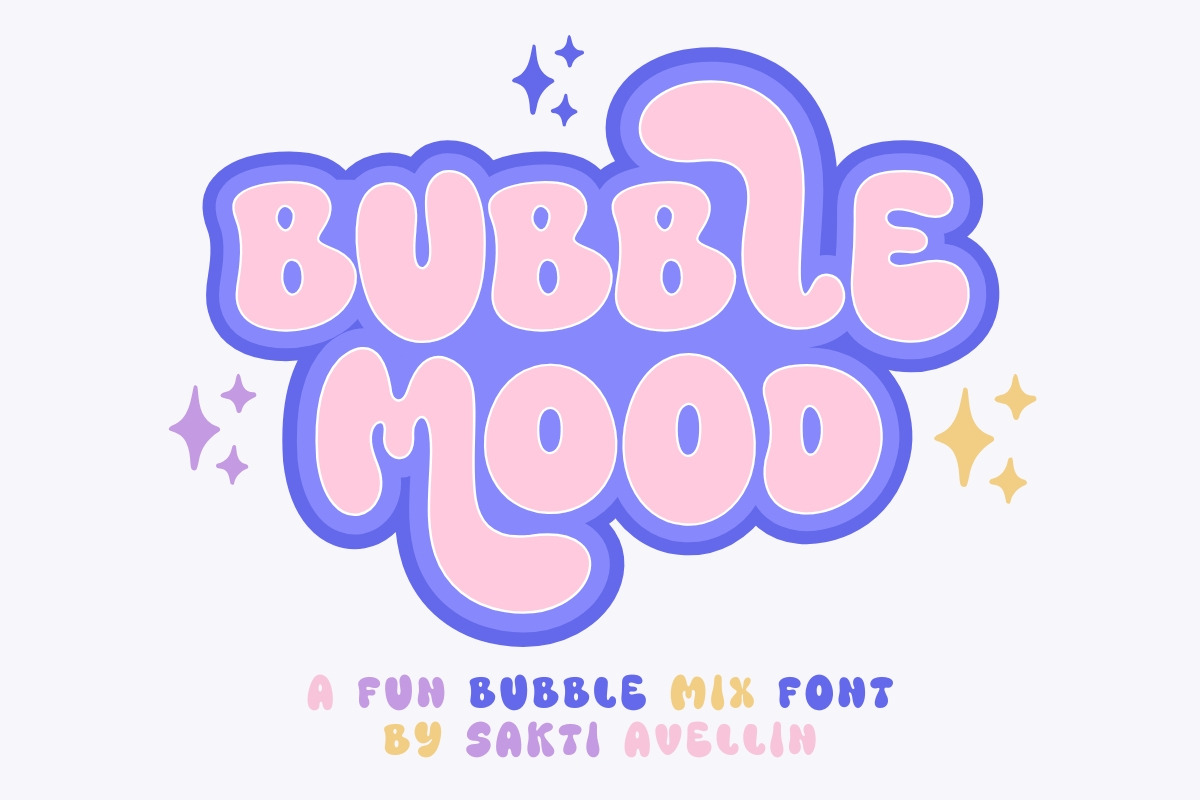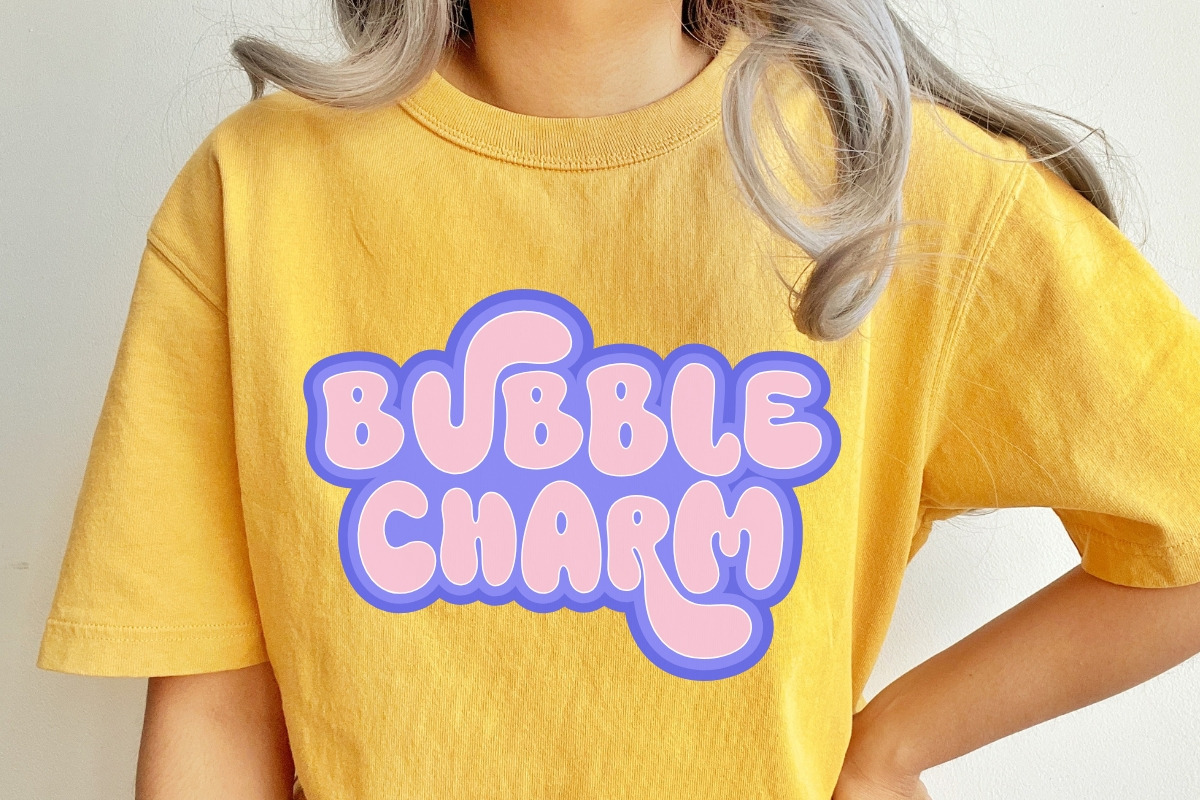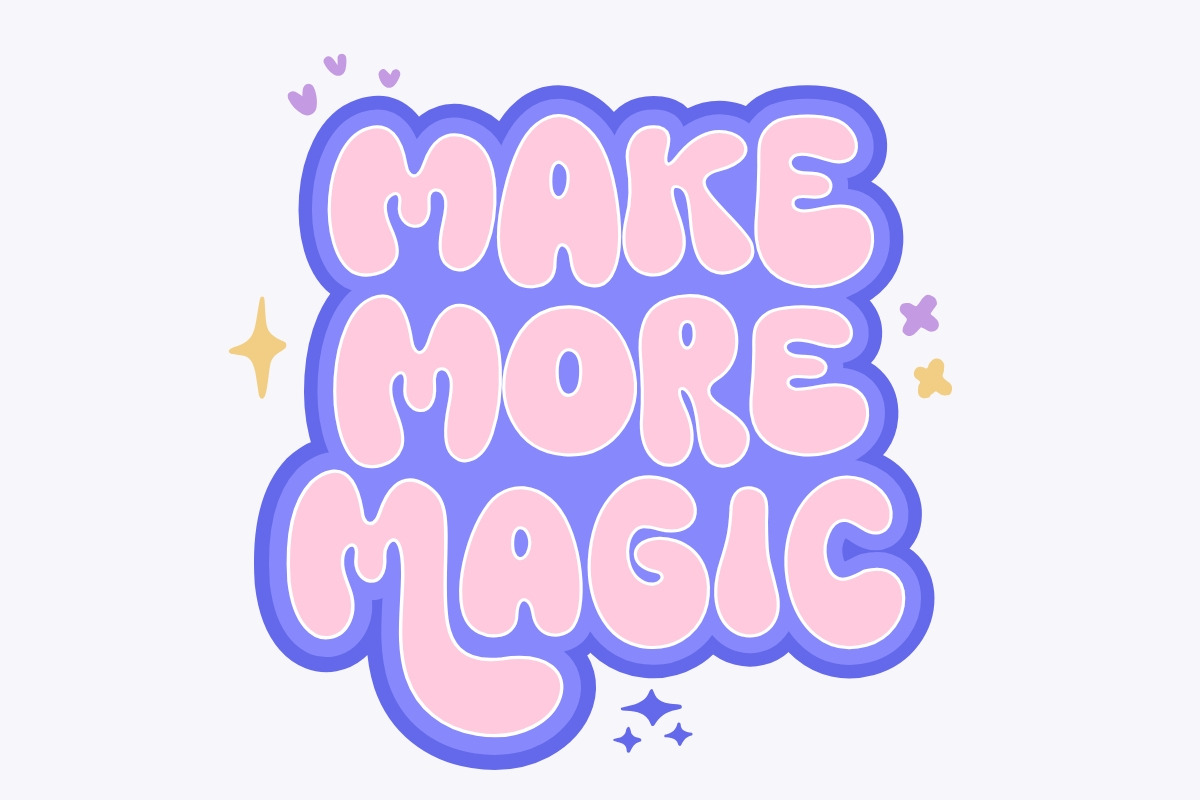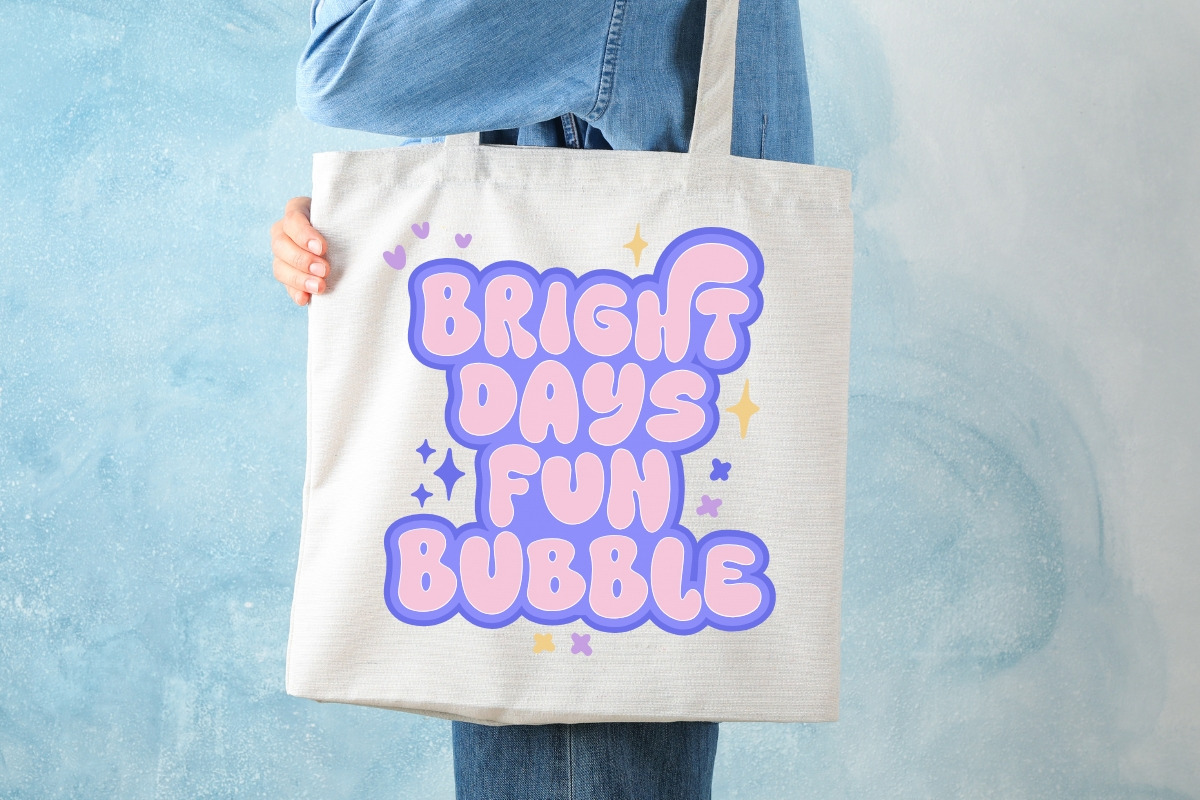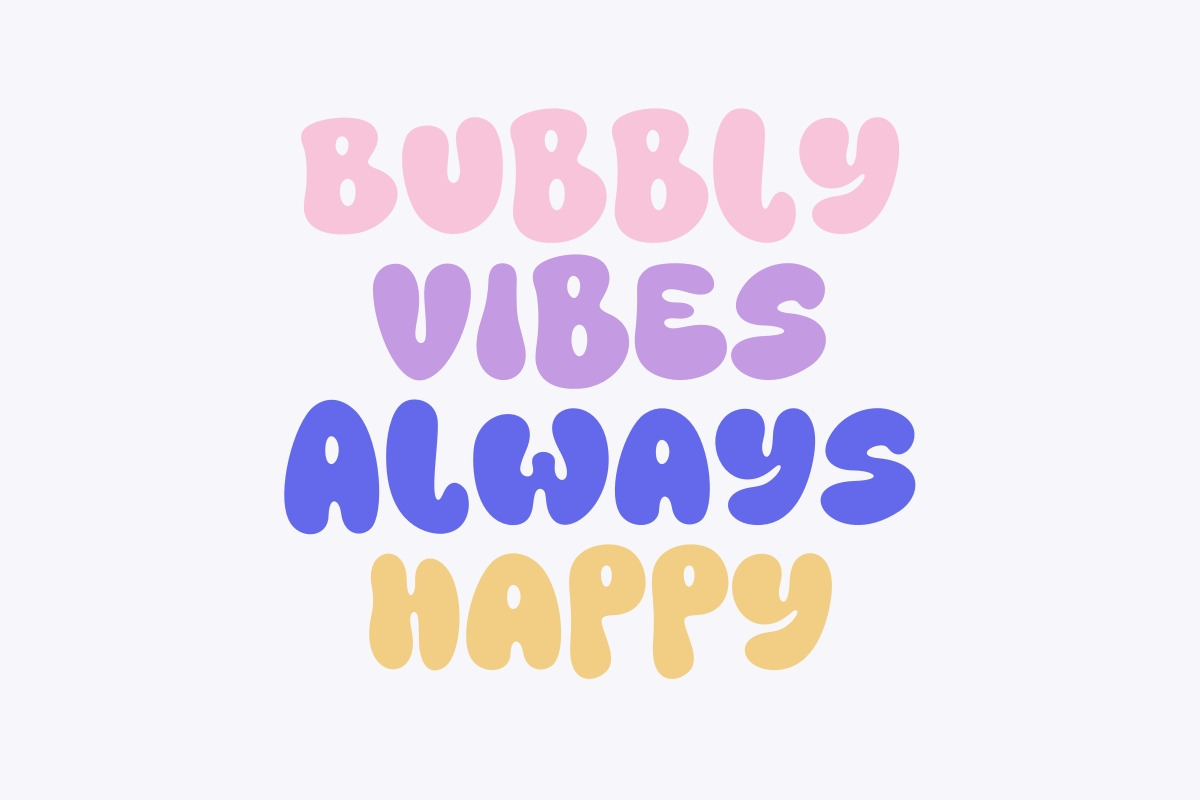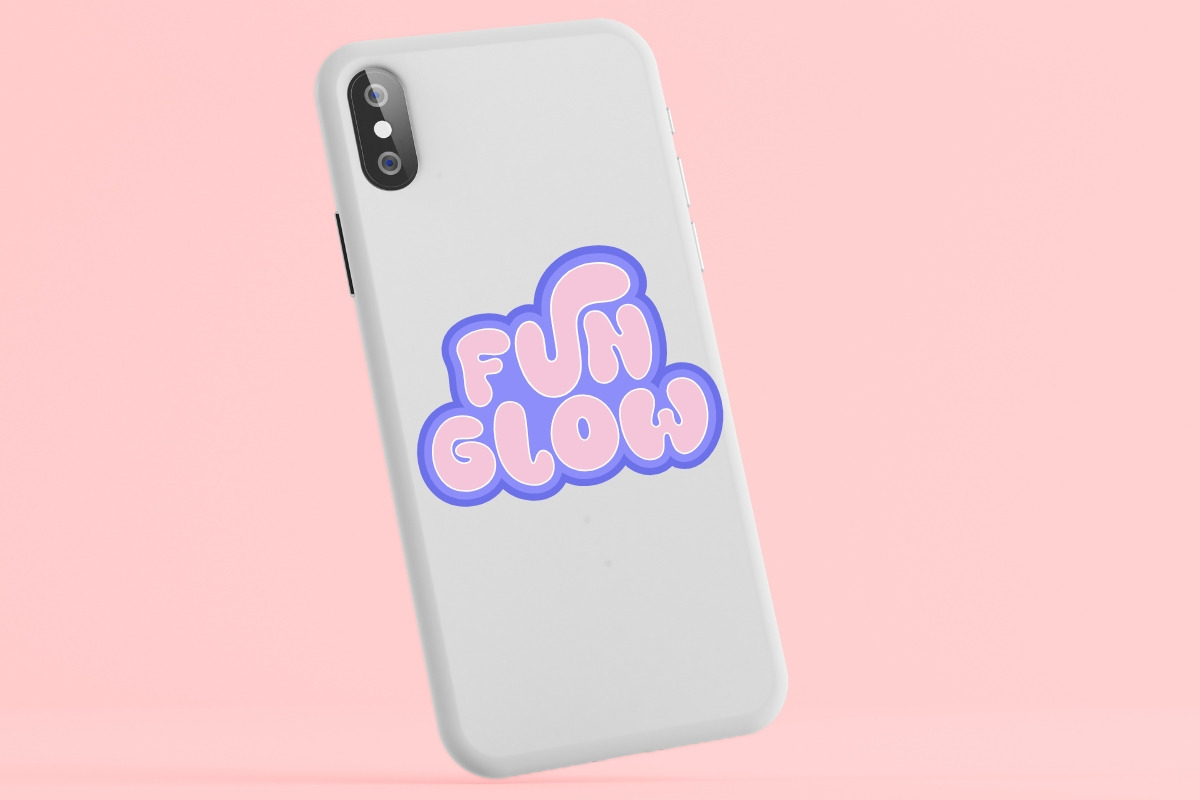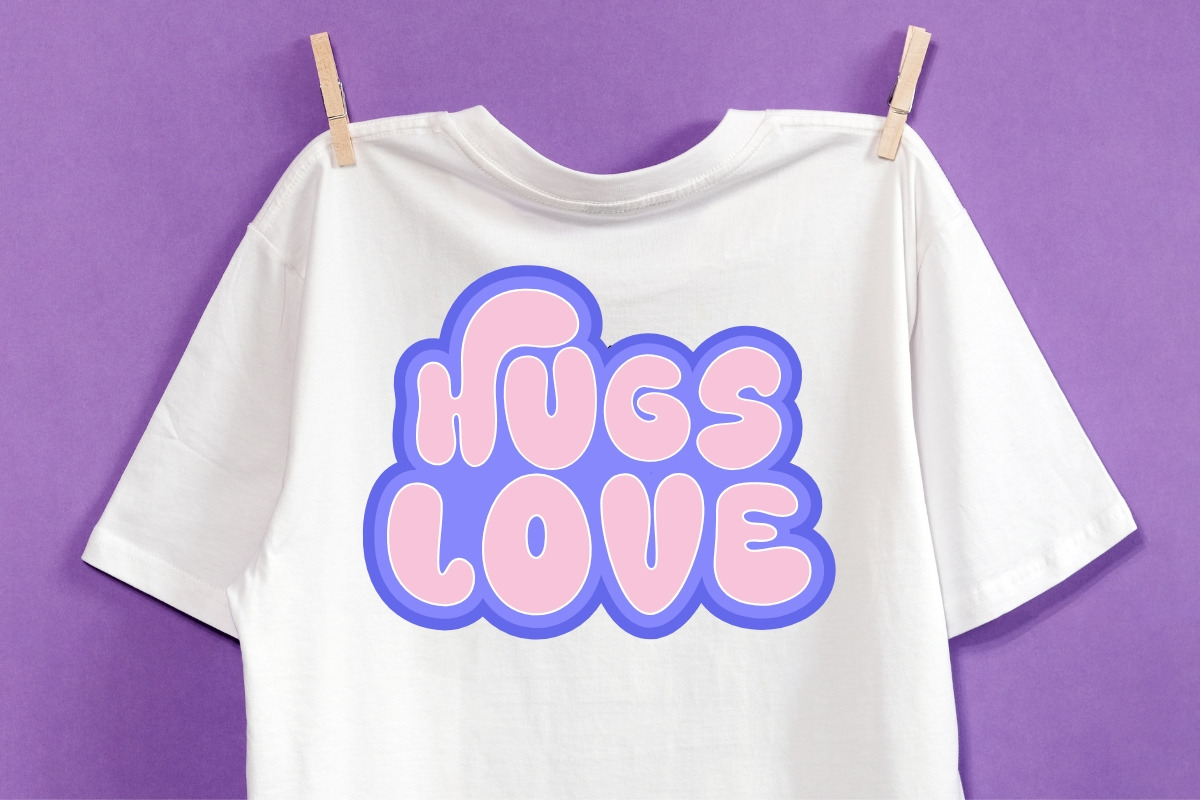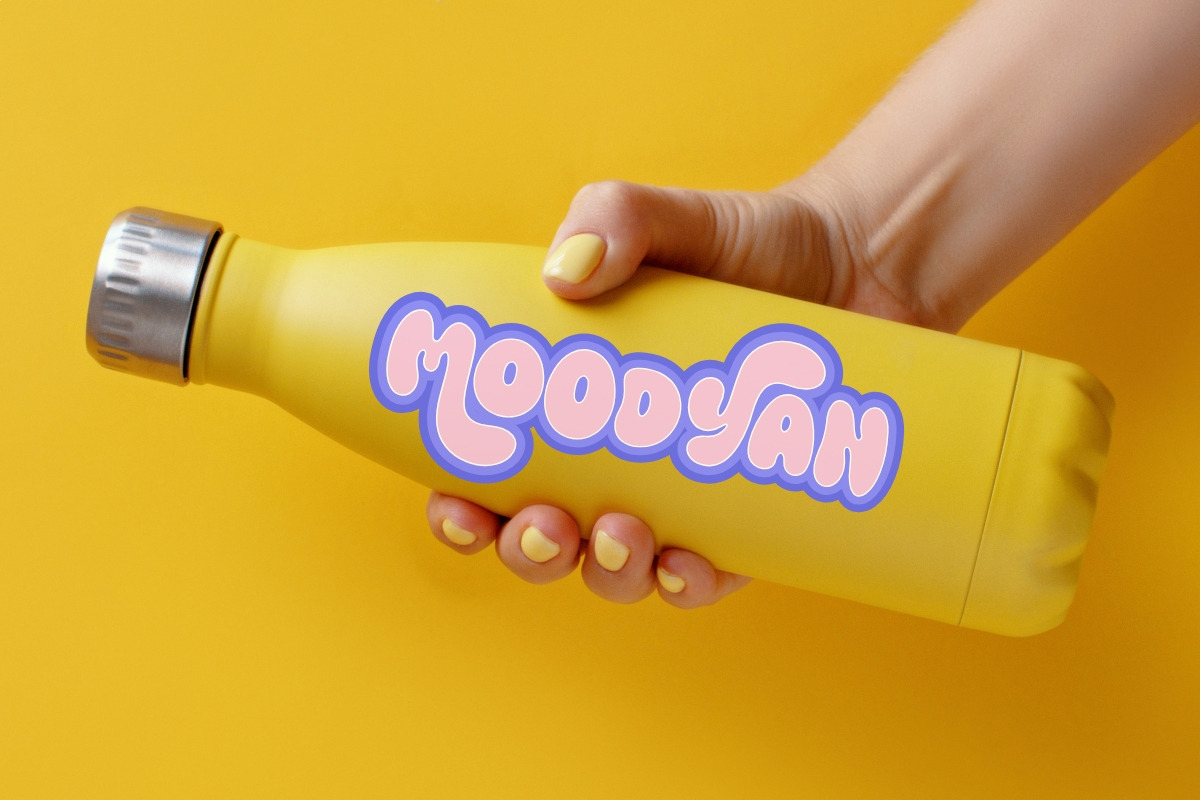
Bubble Mood - Fun Bubble Mix Font
Bubble Mood is an incredibly fun bubble mix font that radiates playful charm and a super cute aesthetic. This bold, chunky display font features exaggerated, rounded letterforms, creating a soft and whimsical mood. It is essential for kids' branding, cheerful party invitations, fun feminine logos, vibrant t-shirt designs, and engaging social media graphics. Its distinctive, heavy style ensures it is a powerful display typeface for headlines and product packaging, appealing to a trendy audience that loves bold, modern, and adorable design. Inflate your creative work with the joyous look of this delightful retro sweet font.